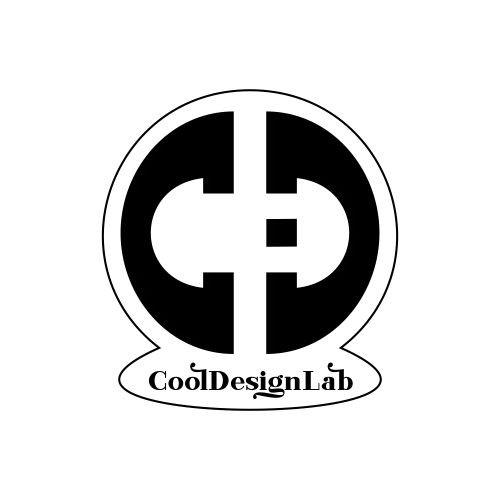
Herlyon Font Description
Herlyon is a serif font with an elegant and classy look. Each character is designed with natural and beautiful curves. This font can help you complete various projects and add spectacular typography! This font is PUA encoded which means you can access all of the glyphs and swashes with ease!